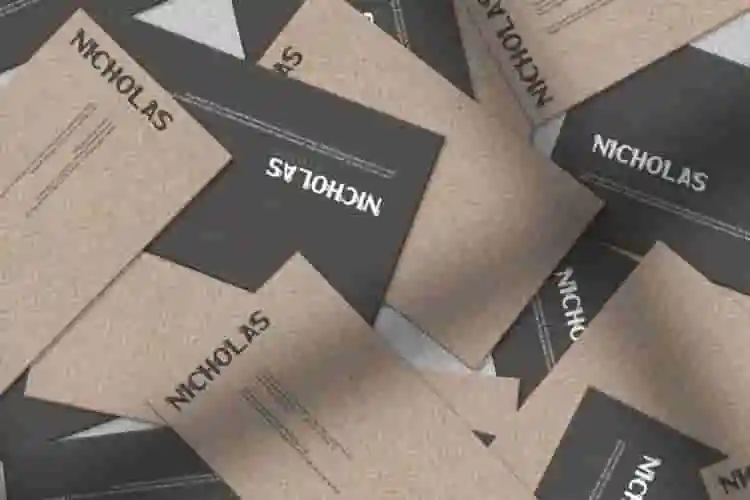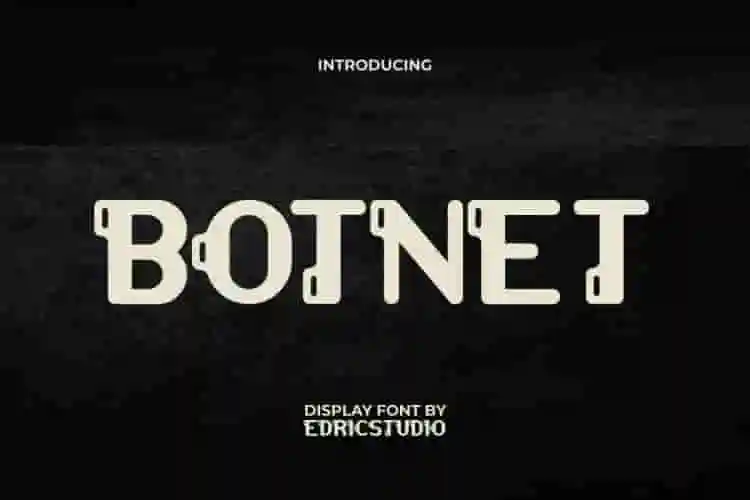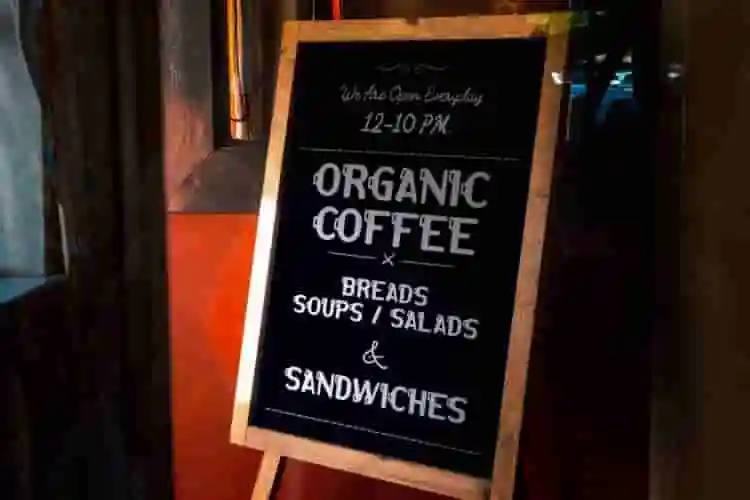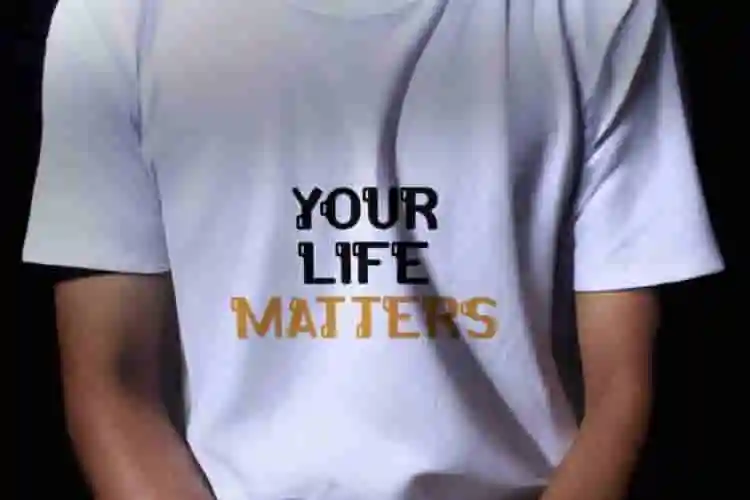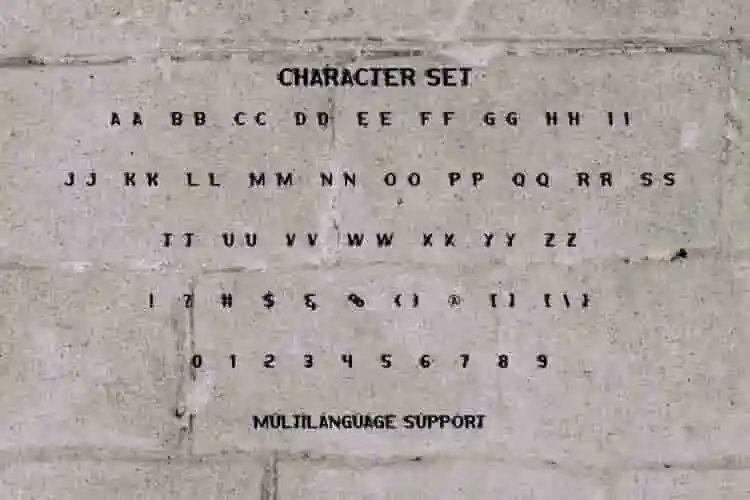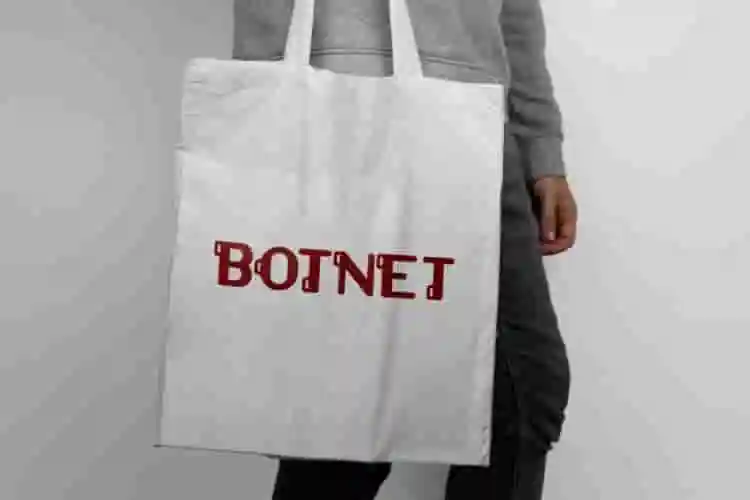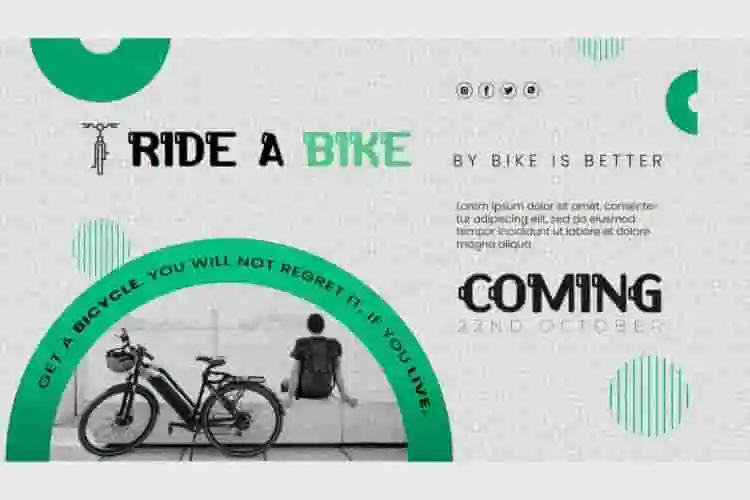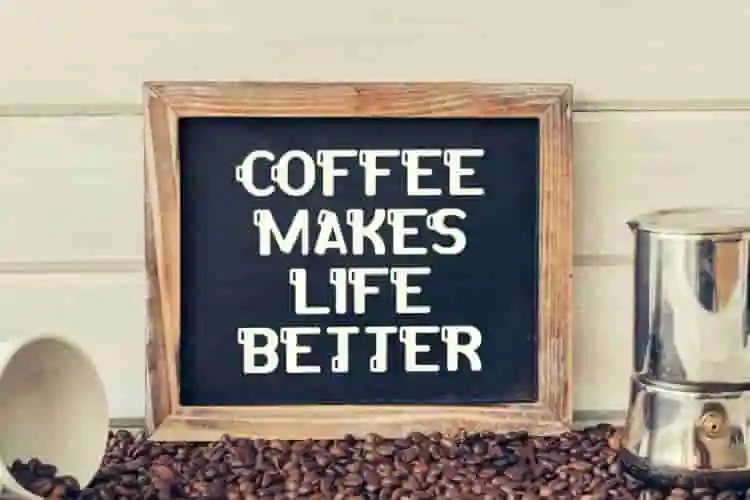
Botnet Display Font
Botnet Font is a techno sci-fi display font designed by EdricStudio inspired from the telecom and futuristic movies. It’s unique and rare, the shape of the letters is perfectly thickened with the addition of a small symbol at the end of each character, perhaps you could say it’s like a bookmark and will suit any industry, such as advertisement, automotive, café, clothing brand, content creator, entertainment, event or festival, film, graphic design, handicraft, movie, printing, publishing, restaurant, sport, and many more.
Botnet Font comes with full set of ALL CAPS for Uppercase and Lowercase Basic Characters, Number, a large range of Punctuation, and Symbol. It has a stunning characters set, perfectly managed with well spaced and kerning. Botnet Font will be able to complement for any project (with extended license) including: billboard, brand logo, brochure, business card, cover, flyer, greeting card, header, label, menu pamphlet, packaging design, poster, quotes, screen print, signage, stationery, sticker, title, website, etc.
Introducing Botnet, a bold display font built for the digital age. With sharp angles, tech-inspired shapes, and a cyber-aesthetic vibe, Botnet is perfect for futuristic branding, gaming graphics, UI titles, and anything that demands a high-tech, cutting-edge look.
Step into the future with Botnet, a bold and angular display font forged in the depths of the digital world. Inspired by cyberpunk aesthetics, hacking culture, and futuristic tech, Botnet is the perfect choice for designers who want their work to feel sharp
• Futuristic Design
• Perfect for Gaming & Tech